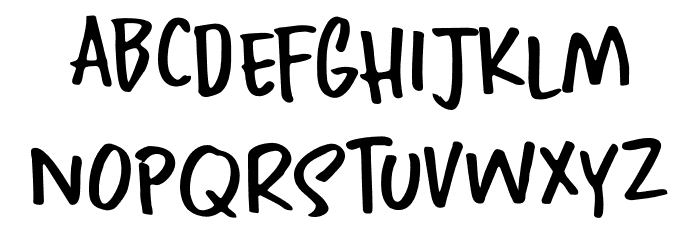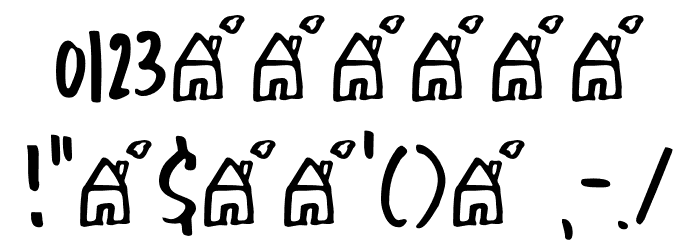
Home Education DEMO Regular Font
This font features a playful and informal handwritten style, characterized by its bold and rounded letterforms. The uppercase and lowercase letters maintain a consistent flow, with slightly exaggerated curves that add a whimsical touch. The numbers and special characters are designed to complement the overall aesthetic, making them suitable for creative and casual applications. The font's unique style is further enhanced by its consistent stroke width, providing a balanced and cohesive appearance across all characters.
A playful, bold handwritten font with rounded letterforms.
- Font: Home Education DEMO Regular
- Proposed Projects: Ideal for children's books, educational materials, playful branding, and creative posters.
- Category: Handwritten
- Overall Style: Playful